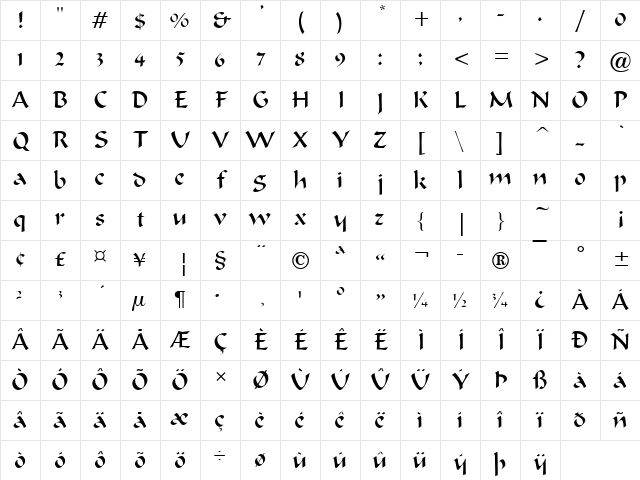
Marlin Thin Normal Free Font
Marlin Thin Normal
Marlin Thin Family
Design Context for Marlin Thin
Marlin Thin is a composed and adaptable typeface that performs quietly and consistently across a wide range of design contexts. Its slender proportions lend an understated elegance to any composition.
Pro Tip: Use Marlin Thin in both headline and body roles to test its range before committing to a single application.